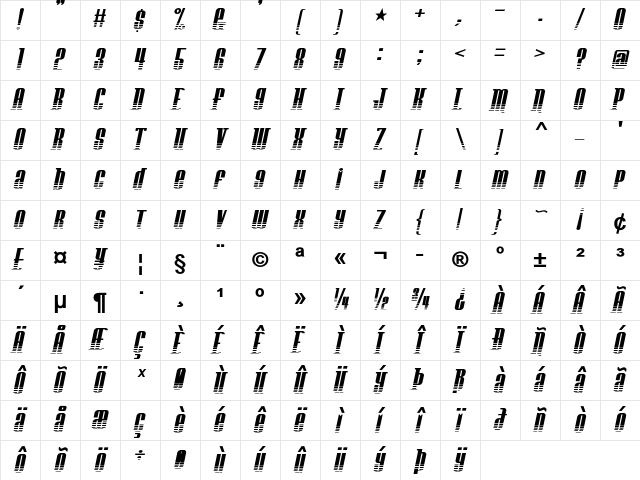
Quickster is a composed and adaptable typeface that performs quietly and consistently across a wide range of design contexts. Its bold stroke weight gives it real presence on the page.